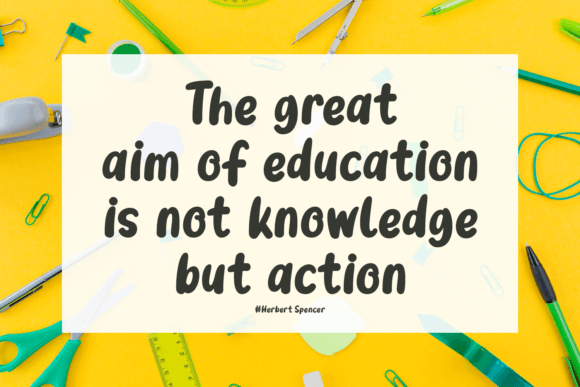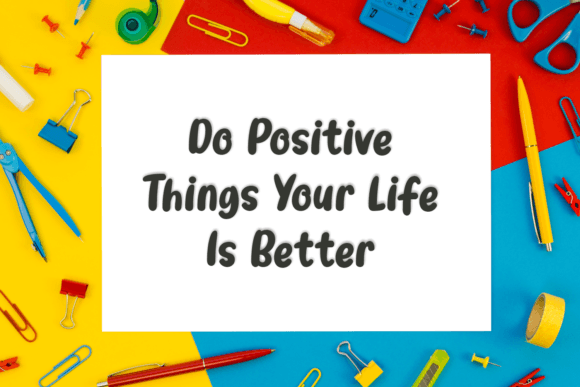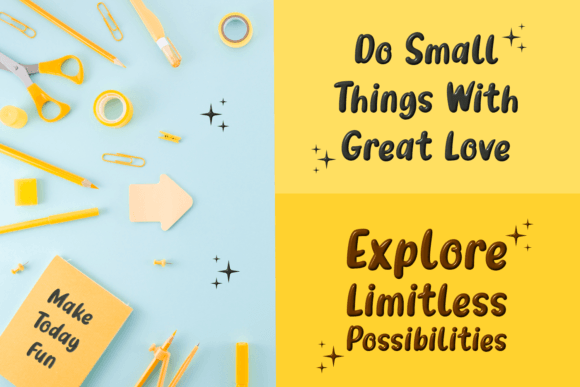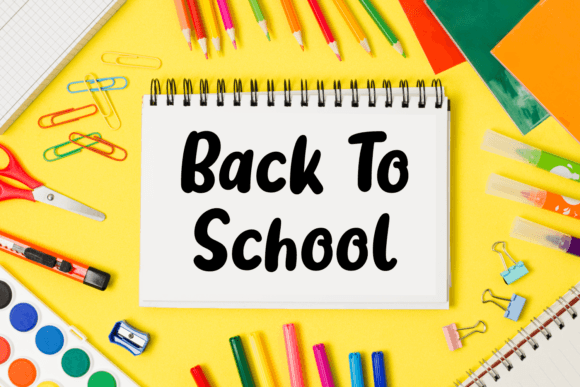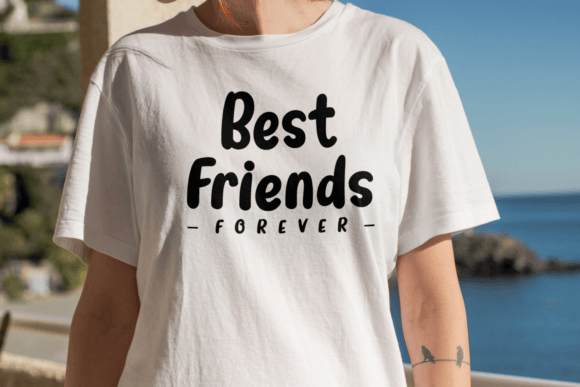
Introduction to Kamon Friends Font
Kamon Friends display font is a simple brush font that exudes a casual and friendly vibe.
Each letter is crafted with brush strokes, giving the font a handmade and organic appearance The brush texture adds depth and character to the letterforms, creating a sense of warmth and authenticity.
Key Features of Kamon Friends Font